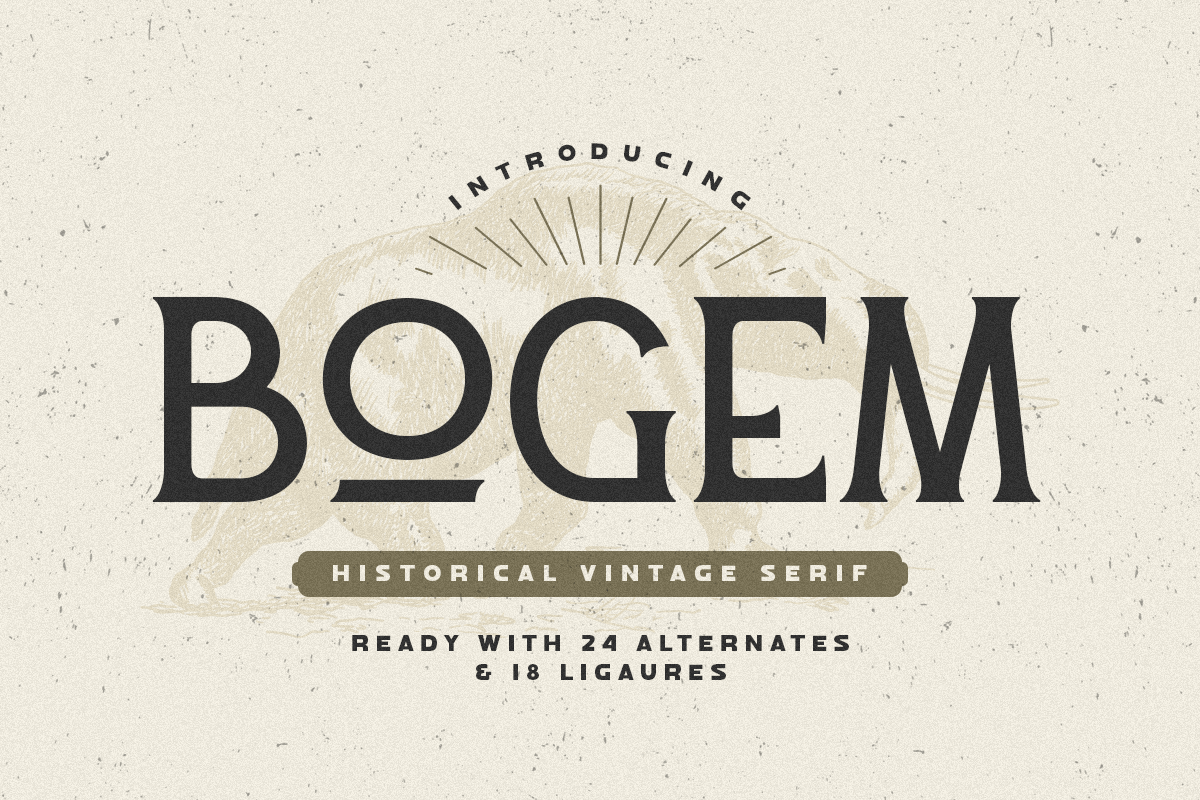
Bogem
-Historical Vintage Serif
Bogem
Bogem is a Historical Vintage Serif. A New Vintage font that we created special for Unique branding needs, with extra ligature in unique style that ready to add value of your brand. It's so nice to leverage designer or product owner that need solutions to make their design look more unique and vintage.
Bogem Historical Vintage Serif font ready with:
• Ligature